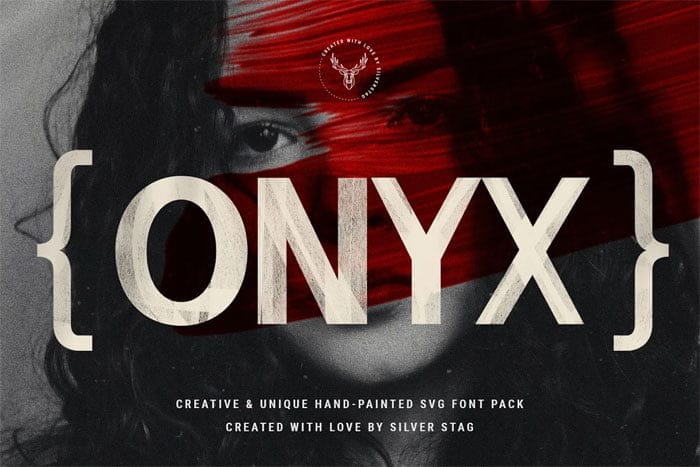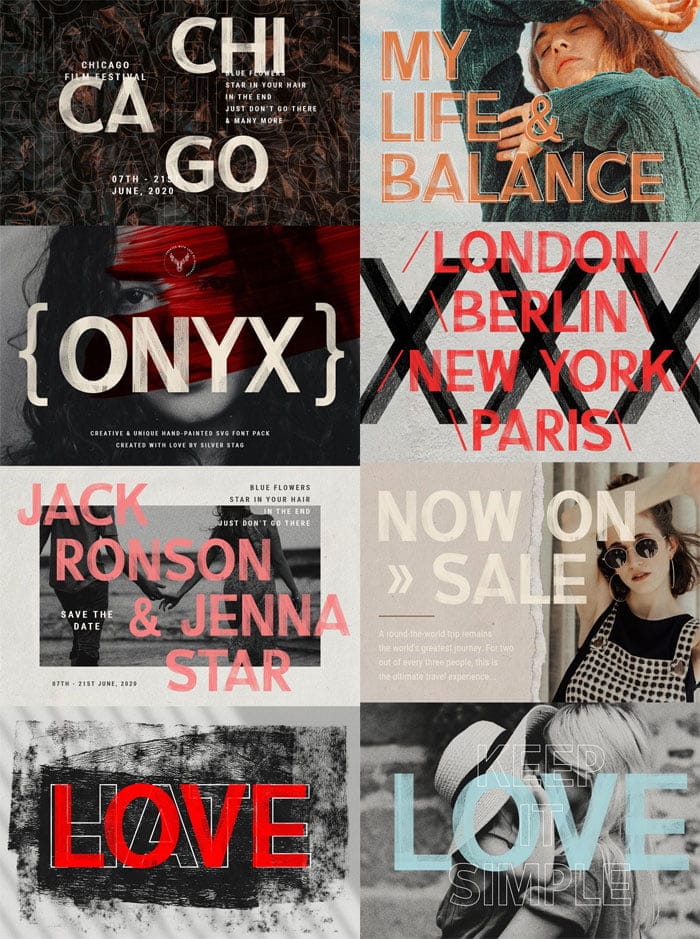
The products in This bundle over 80 fonts in 32 font families and all You know how everyone says that if you want to grow you have to step out of your comfort zone? Well if you know me and if you know my work, you will notice that this font is different from what I have been doing so far. While it was challenging it was also interesting to do something I never did before. From the font itself to the preview images, it’s all different from what I am used to and I am glad to say I am satisfied how it all turned out, which is the most important thing in the end I guess.
ONIX Hand Painted SVG Font
So, this time I have prepared 6 font options in one pack for all of you who need a font that will be different and unique. You will get 2 SVG hand-painted fonts in high resolution, 2 outlined fonts and 2 standard fonts you can use if your software doesn’t support the SVG version. You Can Also Download
ONIX Hand Painted SVG Font
ONIX – Hand-Painted SVG Font Pack includes 4 fonts: